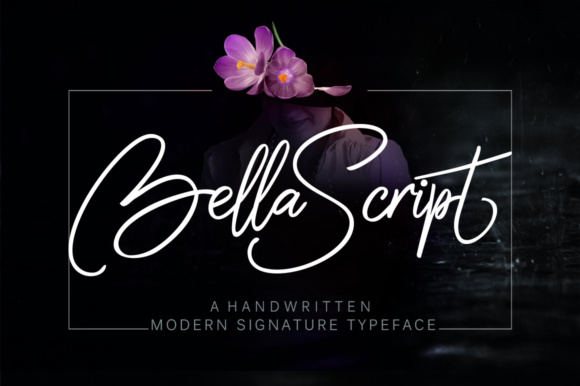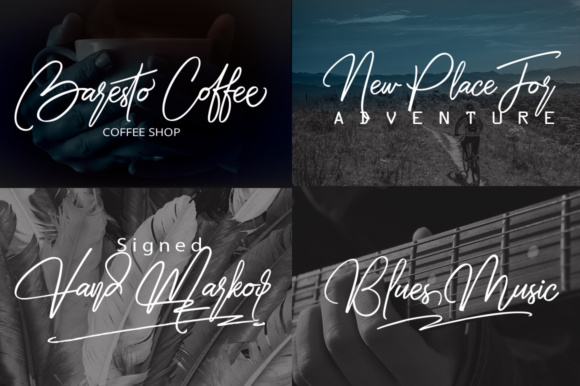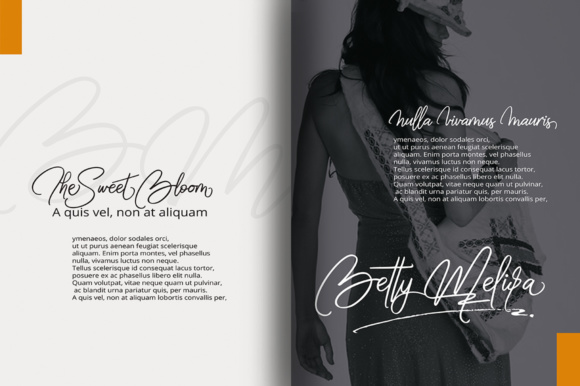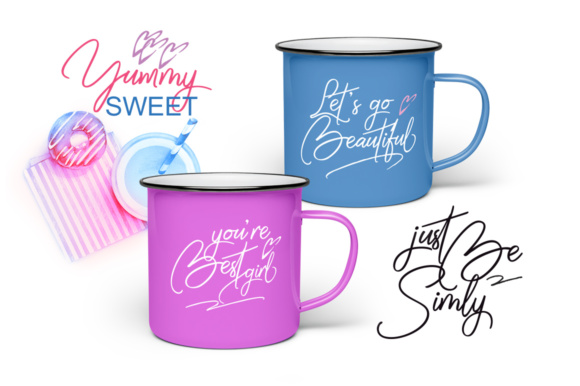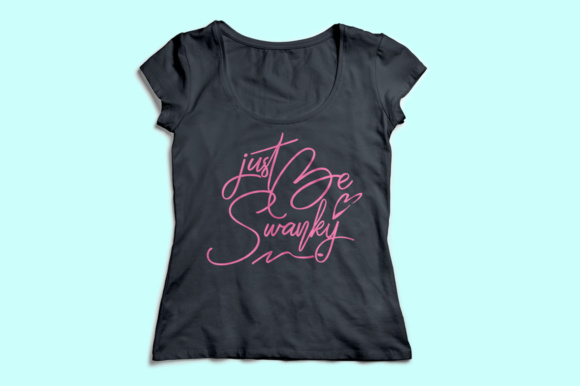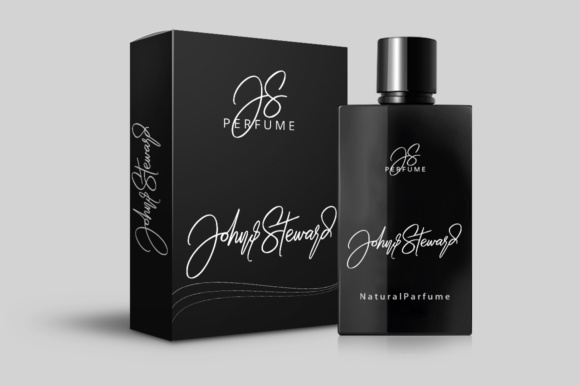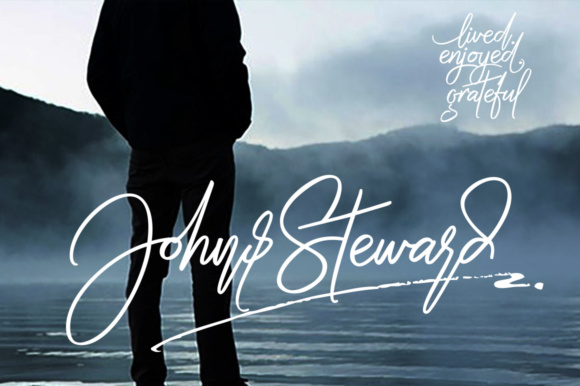
Bella Font
About Bella Font
Bella is a beautiful, handwritten font that is perfect for a wide range of projects. This is a great font that was inspired by handwriting, and looks great in logo designs.